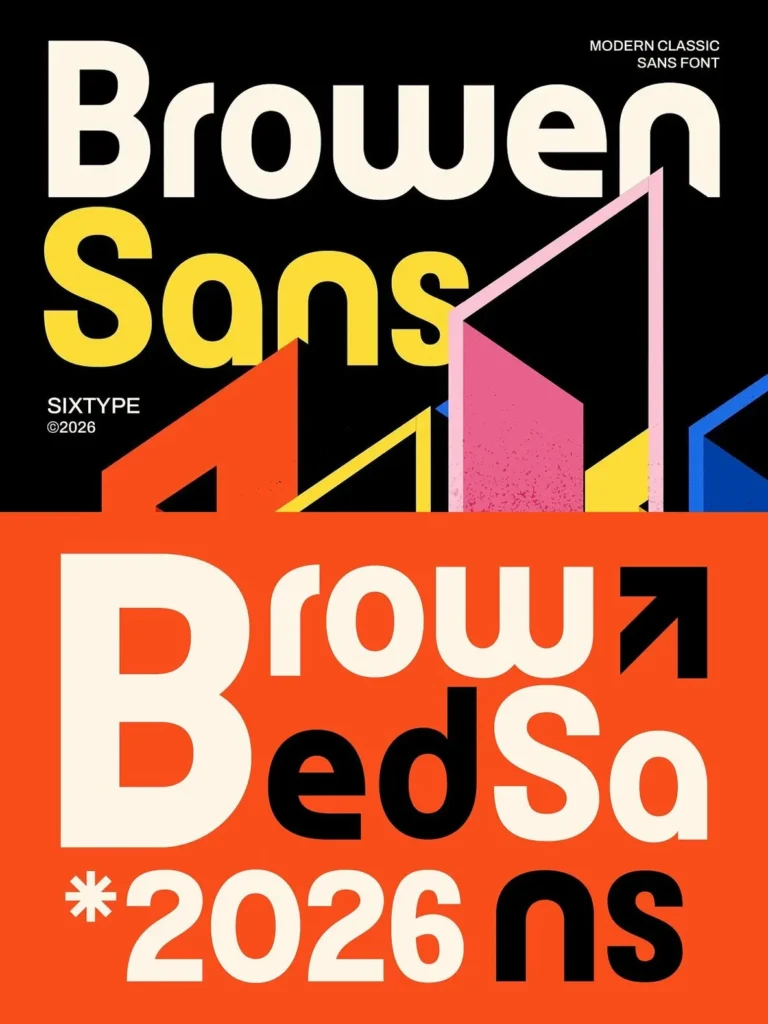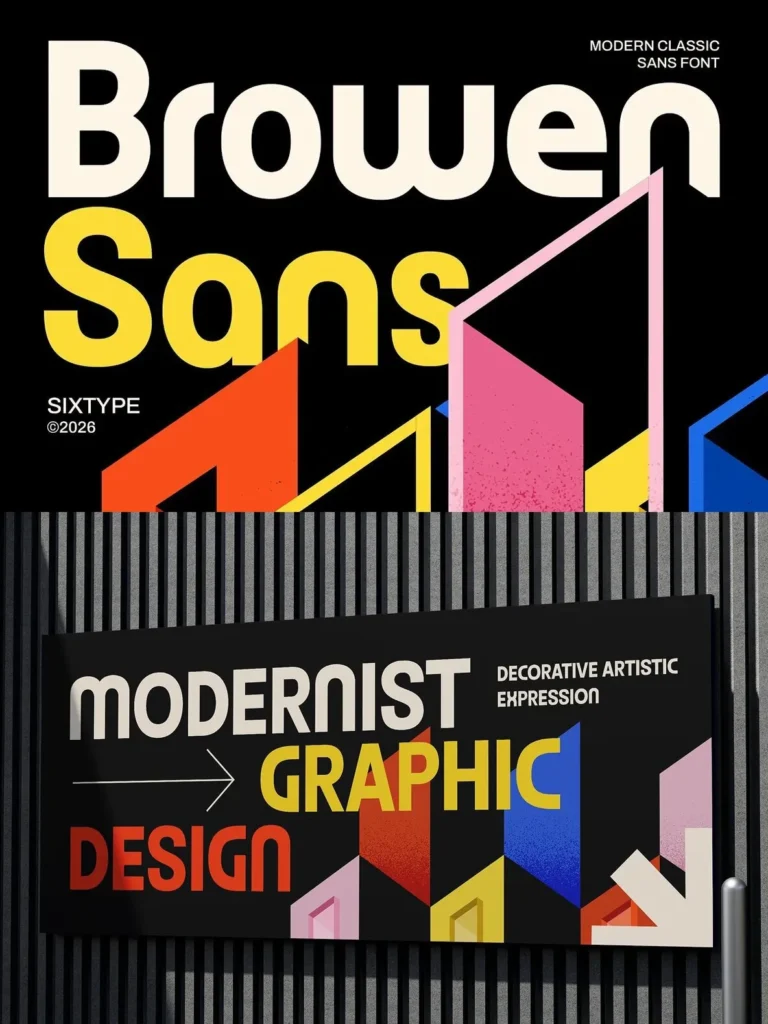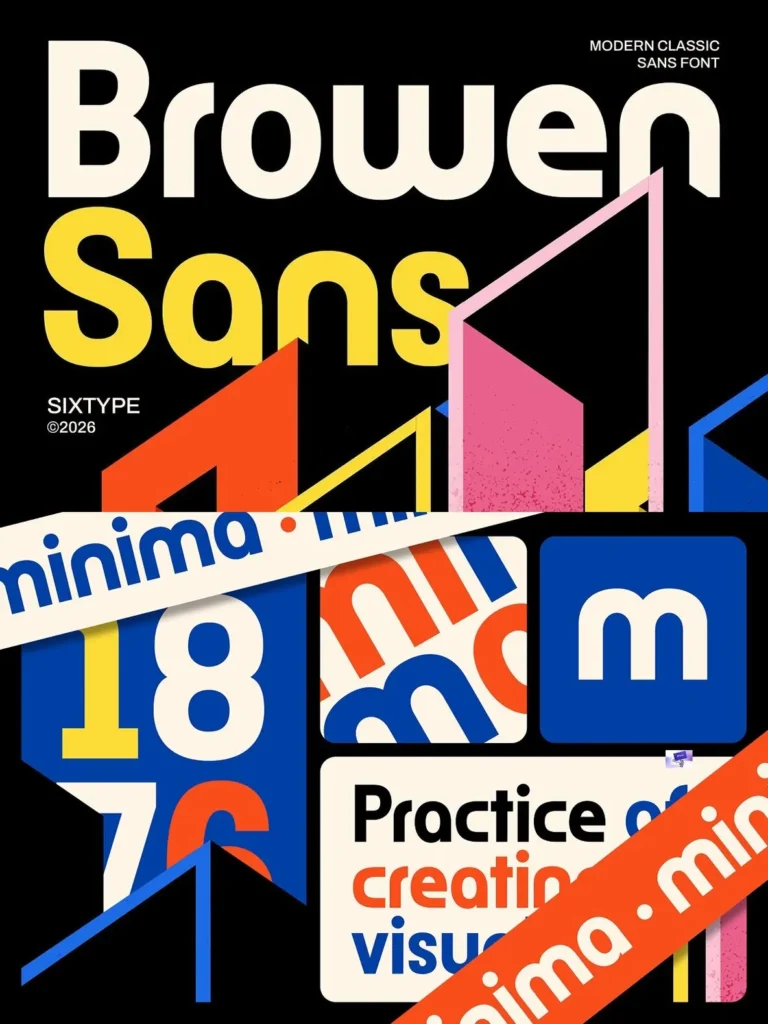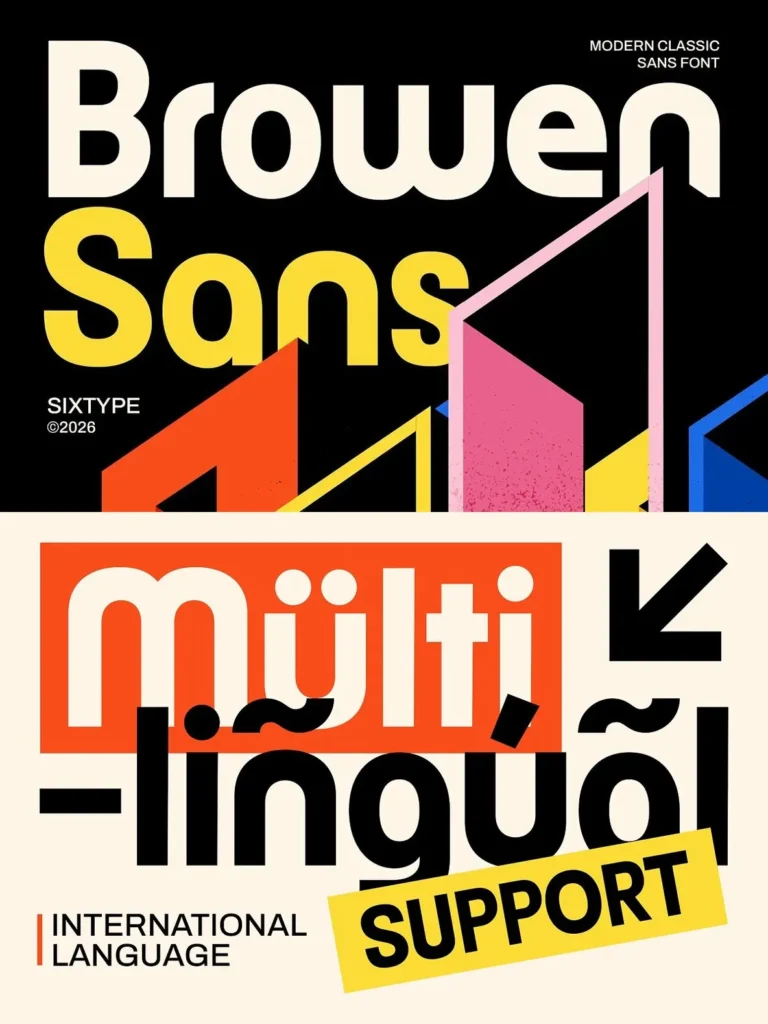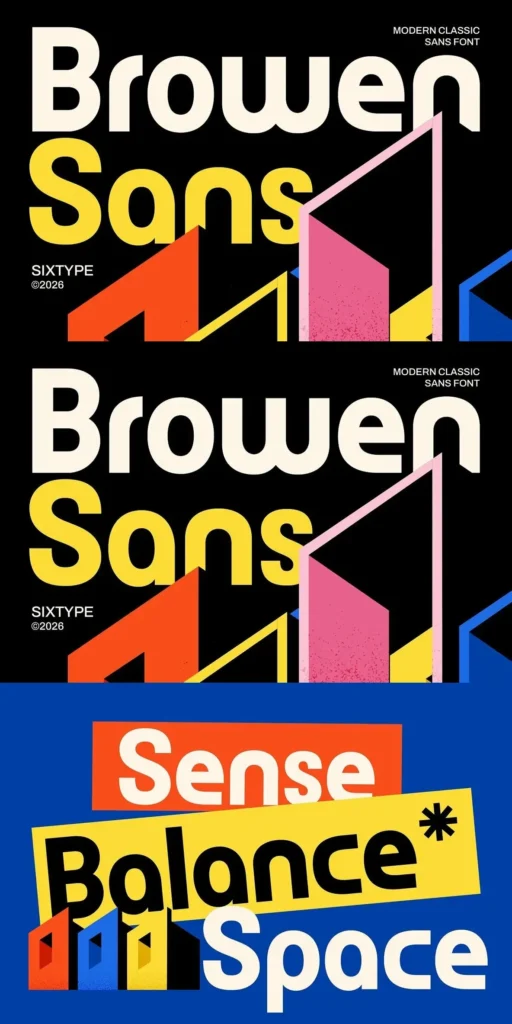
Browen — Serif with Quiet Authority
Browen is a modern serif typeface with elegance, clarity, and strong character. Its refined letterforms and balanced proportions give it a sophisticated presence across digital and print media. The design brings together elegant strokes and distinctive serif details, creating a harmonious typographic voice that feels both classic and contemporary.
Made for professional design work, Browen suits branding, logo design, editorial layouts, fashion graphics, packaging, and luxury visual identities. It offers a timeless appearance with a modern personality, making it a strong choice for projects that need clear structure, polished detail, and a memorable serif style.